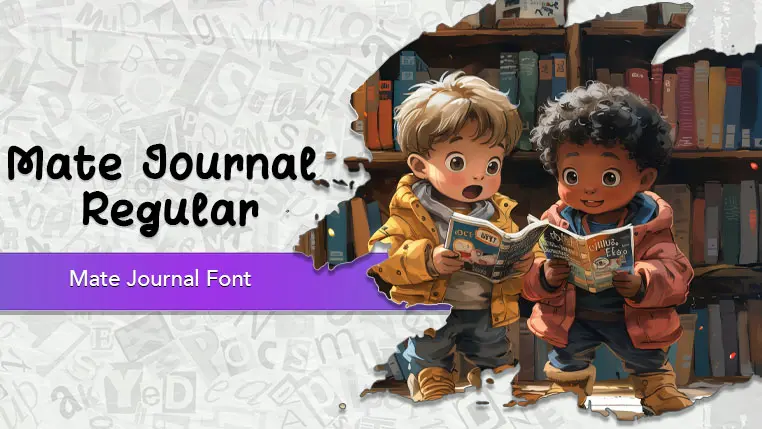
The Mate Journal font family may be ideal for you if you enjoy working on an artistic design project. The lively, expressive look of this typeface, which was created by Khurasan, makes it ideal for Children's Designs, Posters and Banners. The whimsical style can be a great fit for comic book lettering or cartoon-style graphics. For informal magazines, zines, or online articles where a relaxed and personal tone is desired. and other light-hearted visual projects.
Regular are the one primary font styles of the Mate Journal font family. You may build dynamic, visually appealing text layouts with the distinct flair that each style offers. With crisp, readable lines and a relaxed tone.